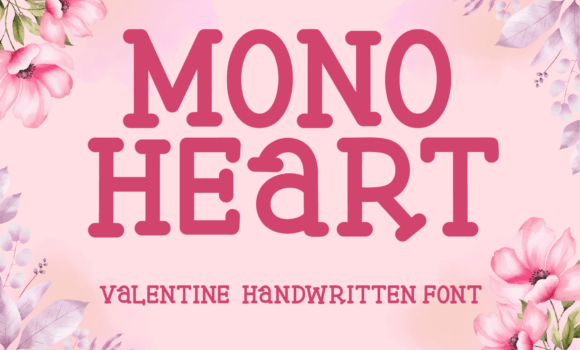
Monoheart Font – Free Download Introduction to Monoheart Font Monoheart is a soft and playful handwritten font created especially for love-inspired designs. 📸 Preview Gallery 6 images 📌 Product Name Monoheart Font 👤 Author AEN Creative Studio 📂 Category Explore